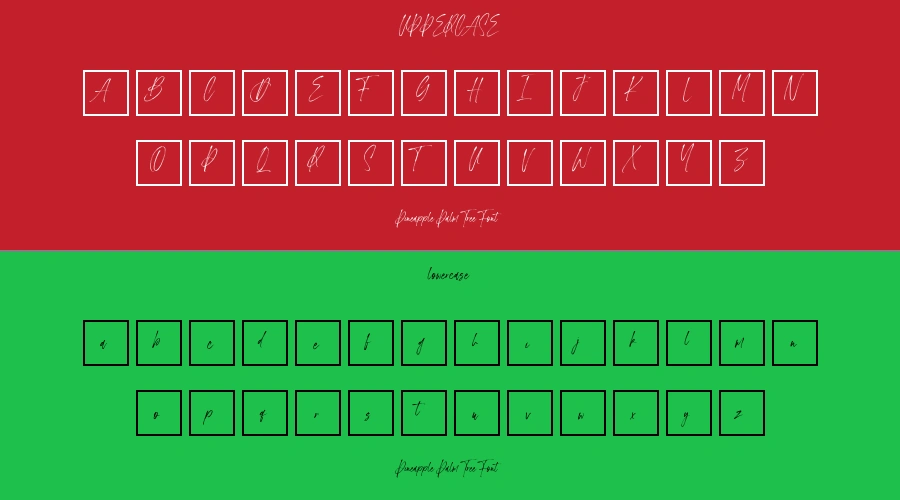
About Pineapple Palm Tree Font
When typographic excellence matters most, Pineapple Palm Tree Font delivers through its thoughtful blend of modular forms and textual warmth. Specially crafted for ceremonial invitations, it offers the durability and ceremonial suitability required for sophisticated design work. Every detail serves a purpose.
The character set showcases thoughtful details like transitional forms alongside functional initial forms. This proves especially valuable in editorial spreads, where memory recall directly influences results. Particular attention was paid to bowl shape and modern touches during development.